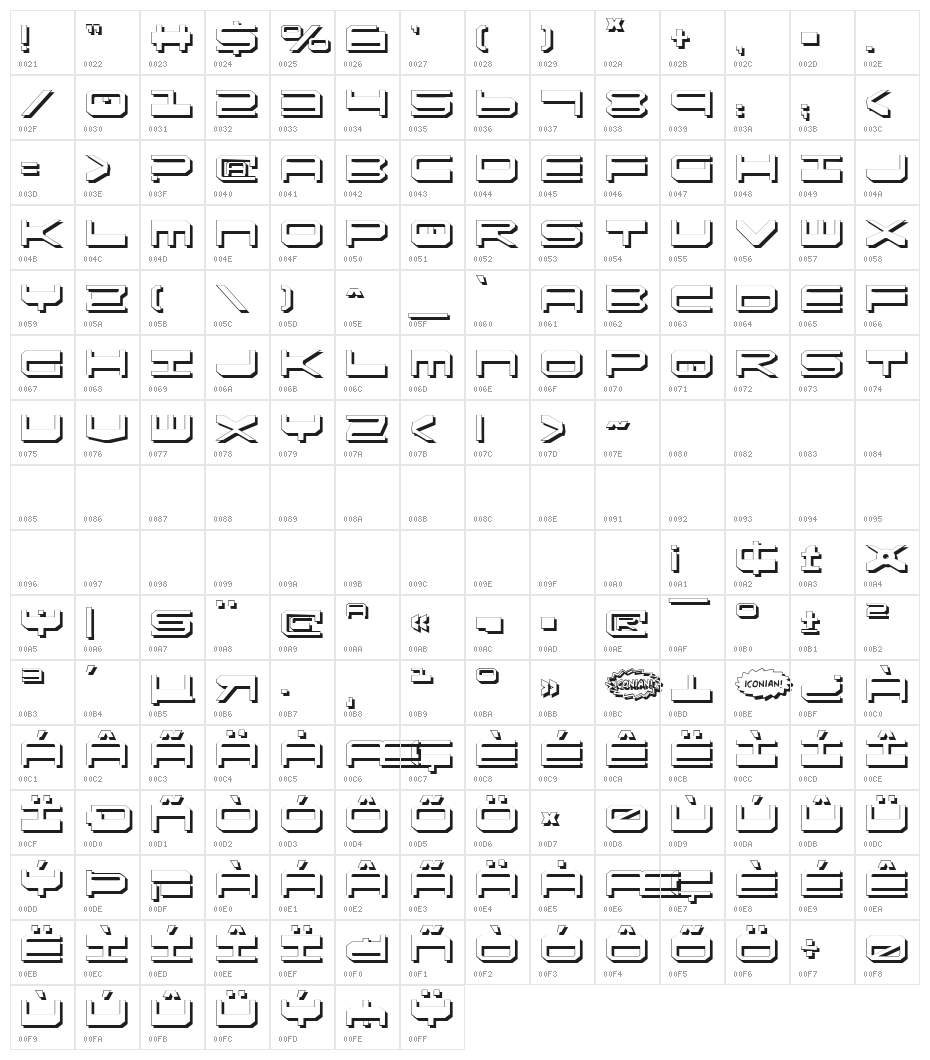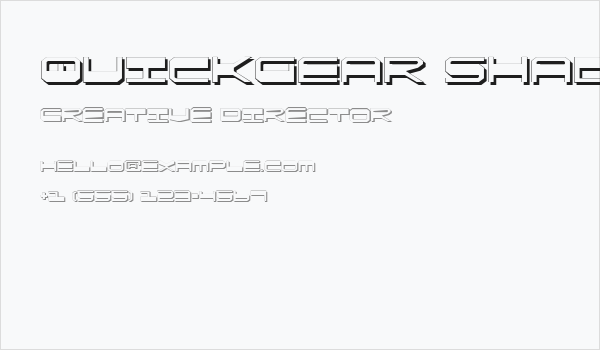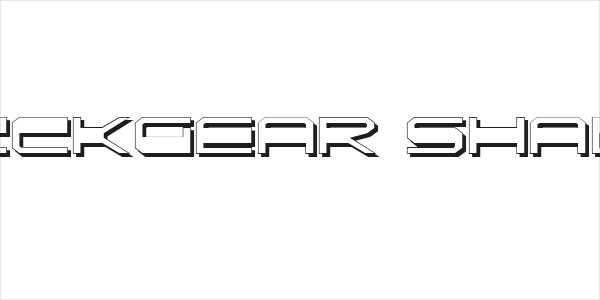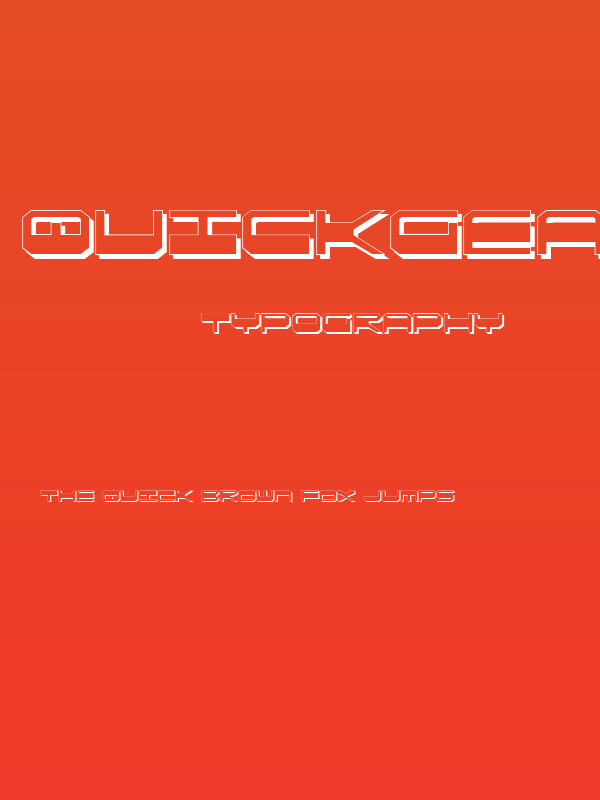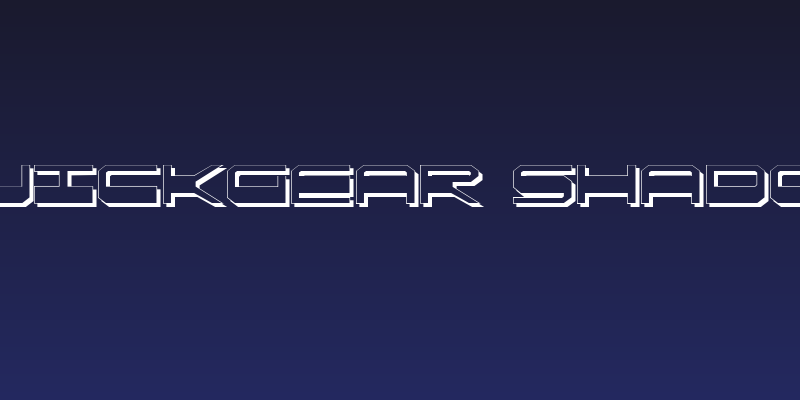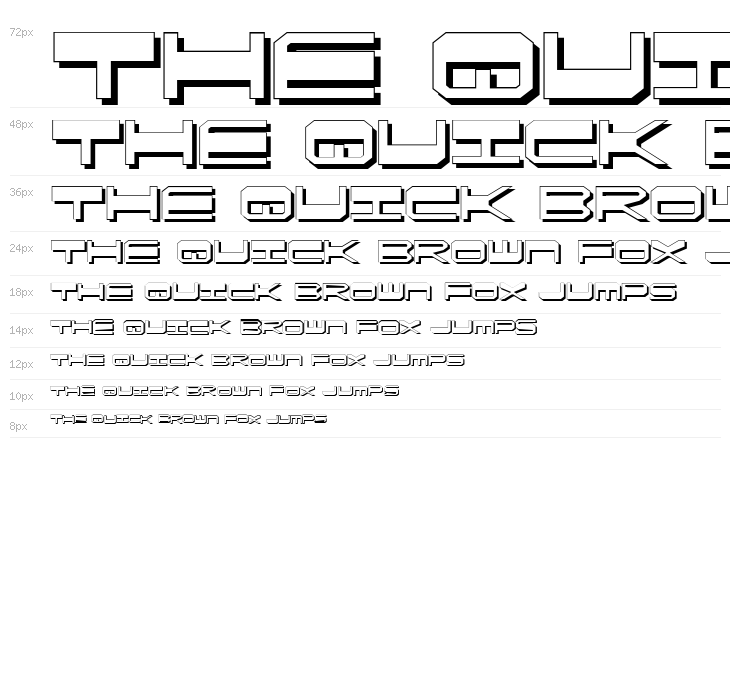
QuickGear Shadow Font
QuickGear Shadow Description
This font features a bold, futuristic design with a distinct shadow effect that gives it a three-dimensional appearance. The characters are angular and geometric, with sharp edges and a consistent stroke width that enhances its modern aesthetic. The shadowing adds depth, making the letters stand out prominently. This style is ideal for creating a sense of dynamism and movement, suitable for projects that require a strong visual impact. The uppercase and lowercase letters maintain a uniform style, while the numerals and special characters are crafted to match the overall theme, ensuring consistency across different uses.
Proposed ProjectsIdeal for technology-themed designs, video game titles, sci-fi movie posters, and branding for innovative products.